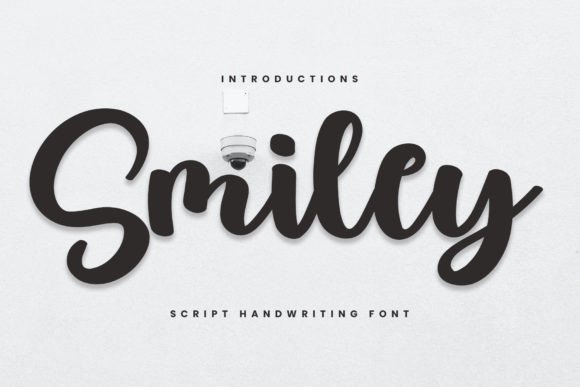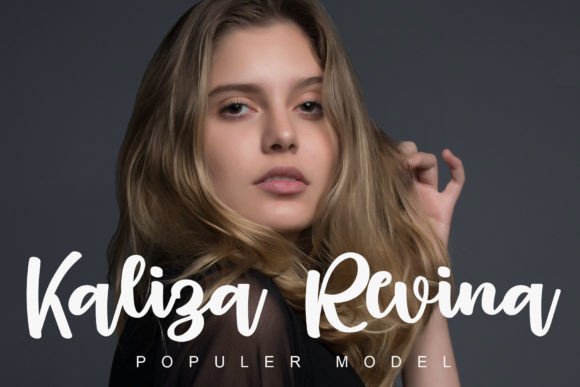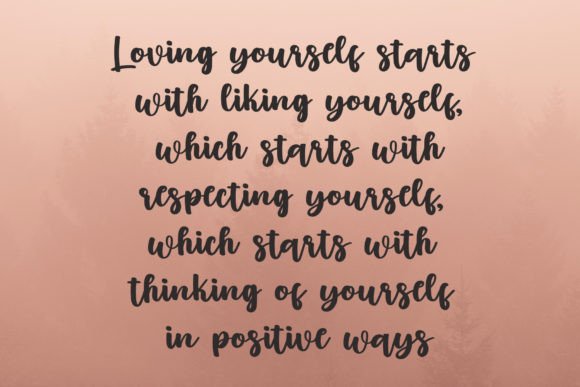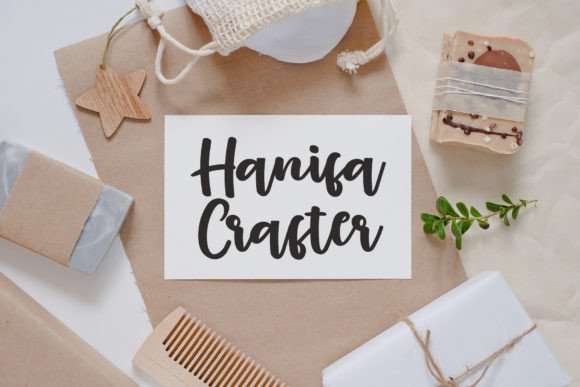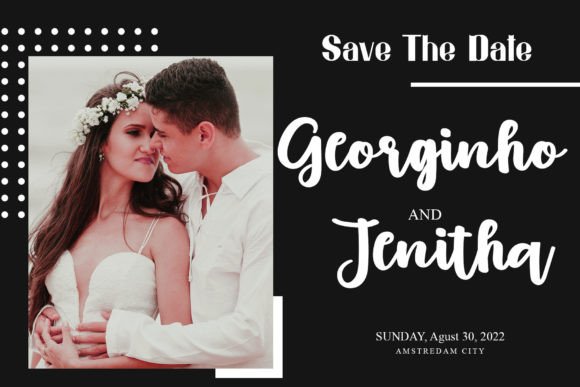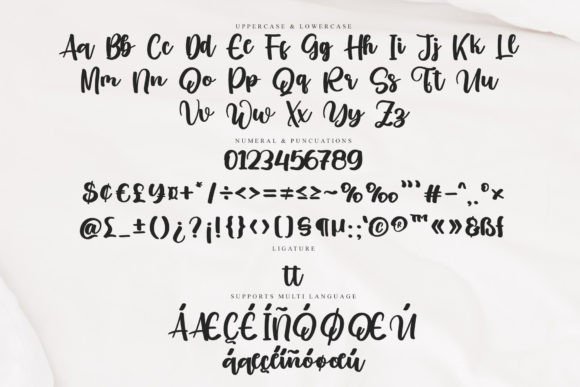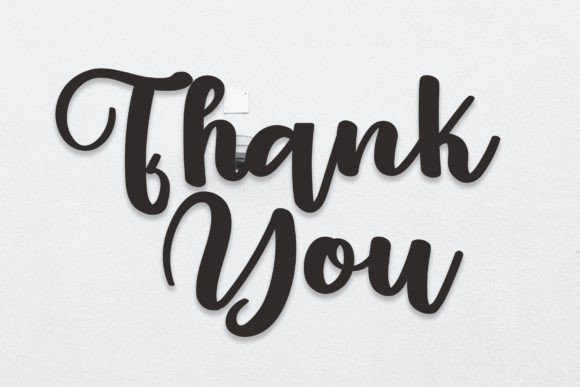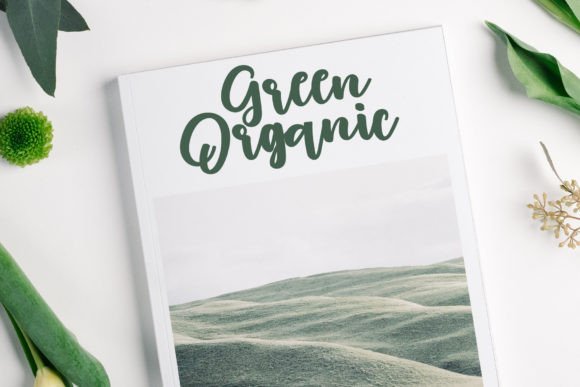
Smiley Font
About Smiley Font
“Smiley” is a bold and exquisite handwritten font that exudes style, grace, and a flowing charm. This font possesses the power to elevate the appearance of your creative works, all while maintaining a grounded and natural feel. Its versatility and aesthetics make it an excellent choice for various design applications. Here are some key features and potential uses for the “Smiley” font:
1. **Stylish and Graceful Design:** “Smiley” boasts a stylish and graceful design that adds an air of sophistication to your projects. Its boldness and fluidity make it visually striking and appealing.
2. **Diverse Creative Applications:** This font can be applied to a wide range of creative projects, including branding, logo design, product packaging, magazine layouts, posters, and more.
3. **Elevated Visual Appeal:** “Smiley” has the ability to enhance the visual appeal of your designs, making them more captivating and memorable. Its graceful and flowing lines contribute to its aesthetic charm.
4. **Natural and Approachable:** Despite its boldness and style, “Smiley” maintains a natural and approachable feel, making it suitable for conveying authenticity and groundedness.
5. **Versatile Usage:** Use “Smiley” in both personal and professional contexts. It can be employed for personal projects like invitations and greeting cards, as well as for business materials such as marketing collateral and advertisements.
6. **Impressive Branding:** When utilized in branding projects, “Smiley” can help create a unique and impressive brand identity. Its stylish and graceful appearance can set your brand apart from the competition.
In summary, “Smiley” is a versatile and elegant handwritten font that can enhance the beauty and impact of your creative endeavors. Its boldness and grace make it a valuable asset for designers and individuals looking to infuse their work with sophistication and natural charm, ensuring that their creations leave a lasting impression.